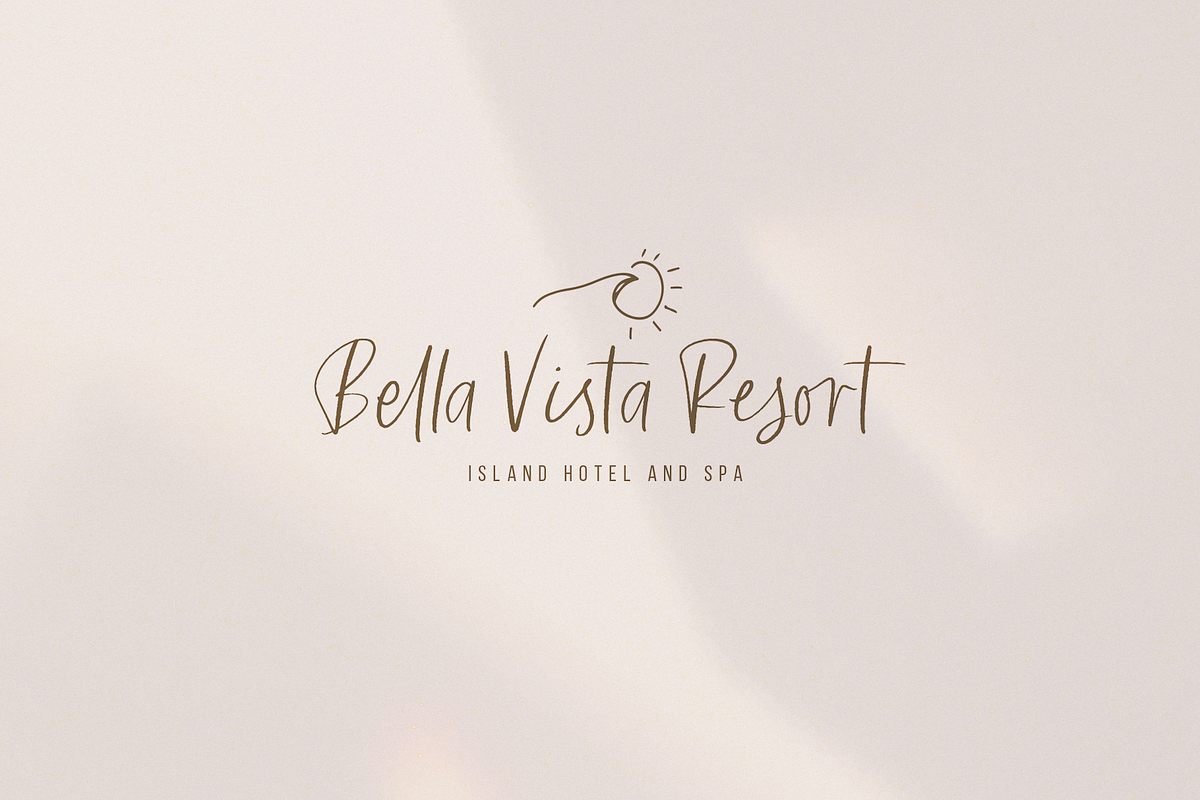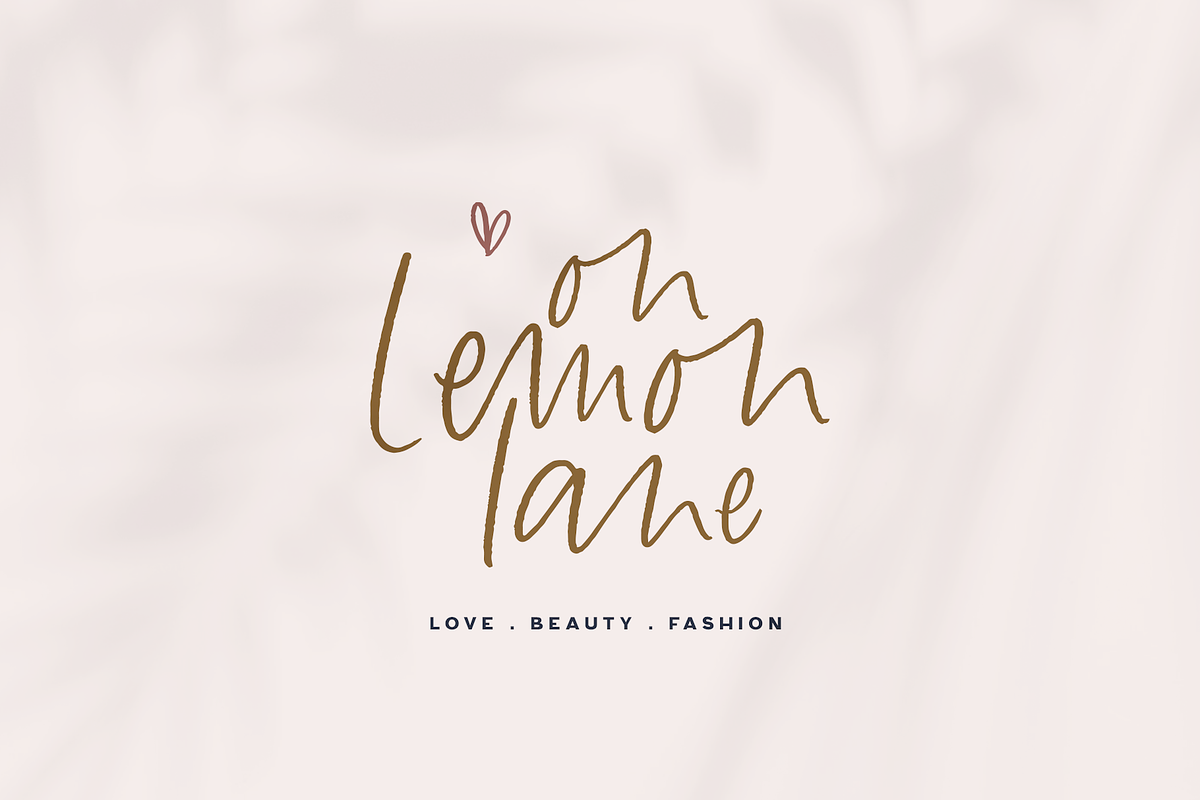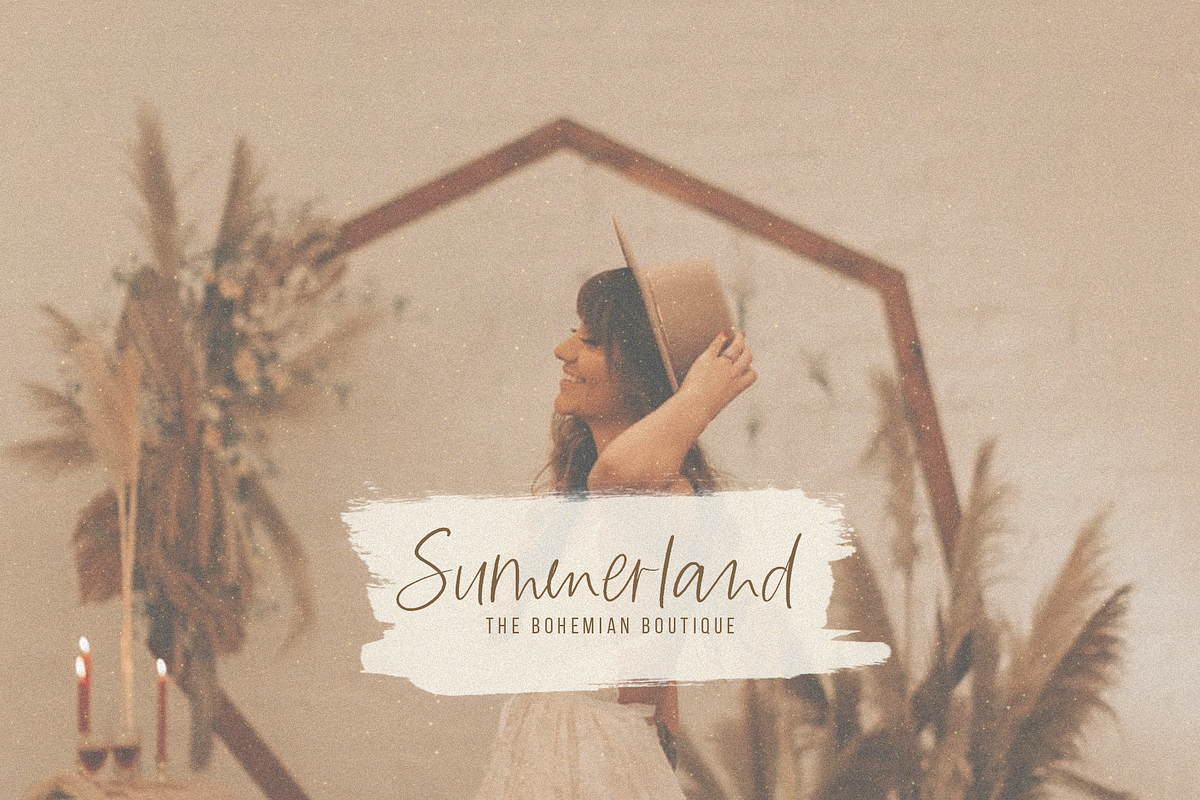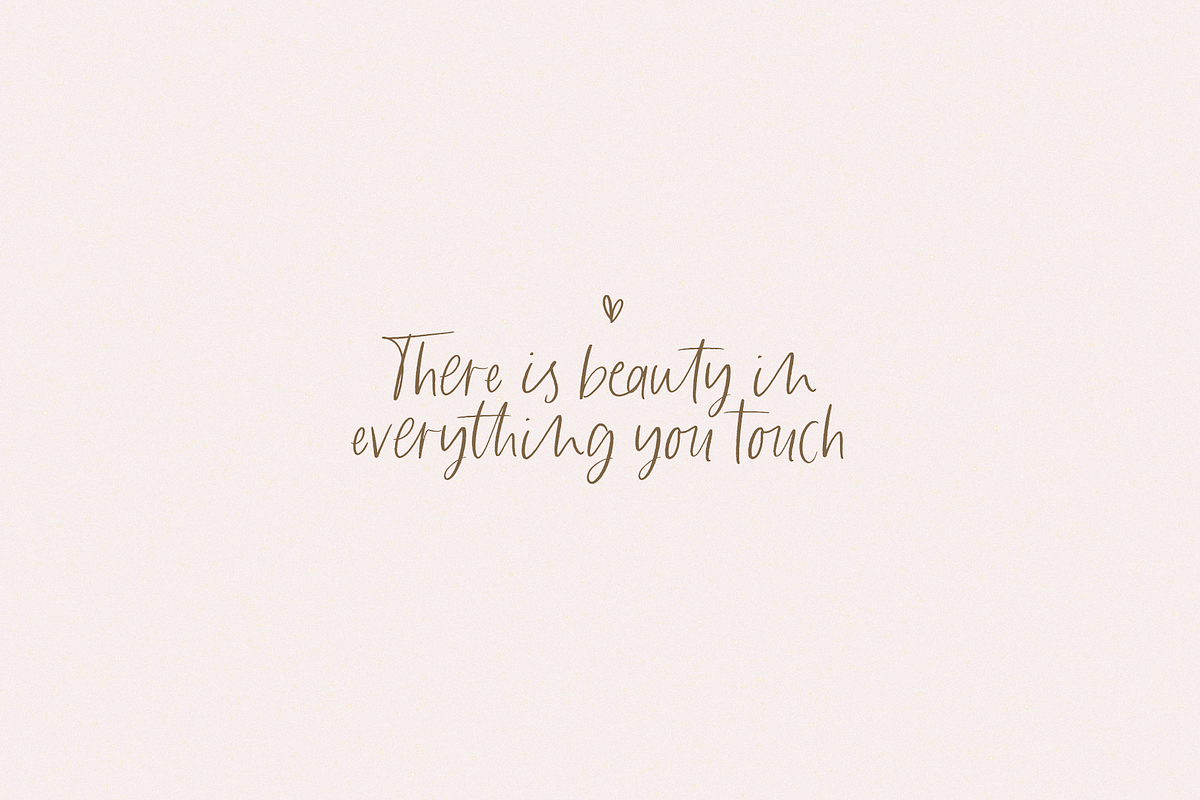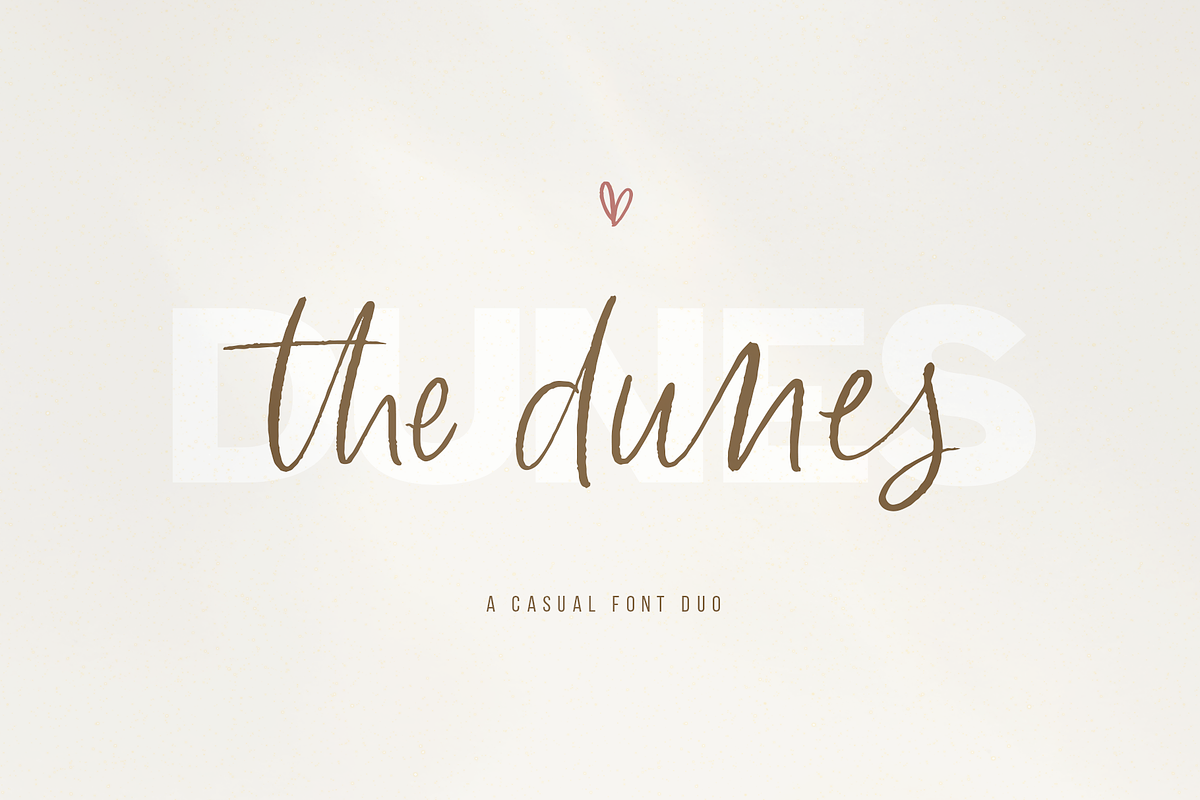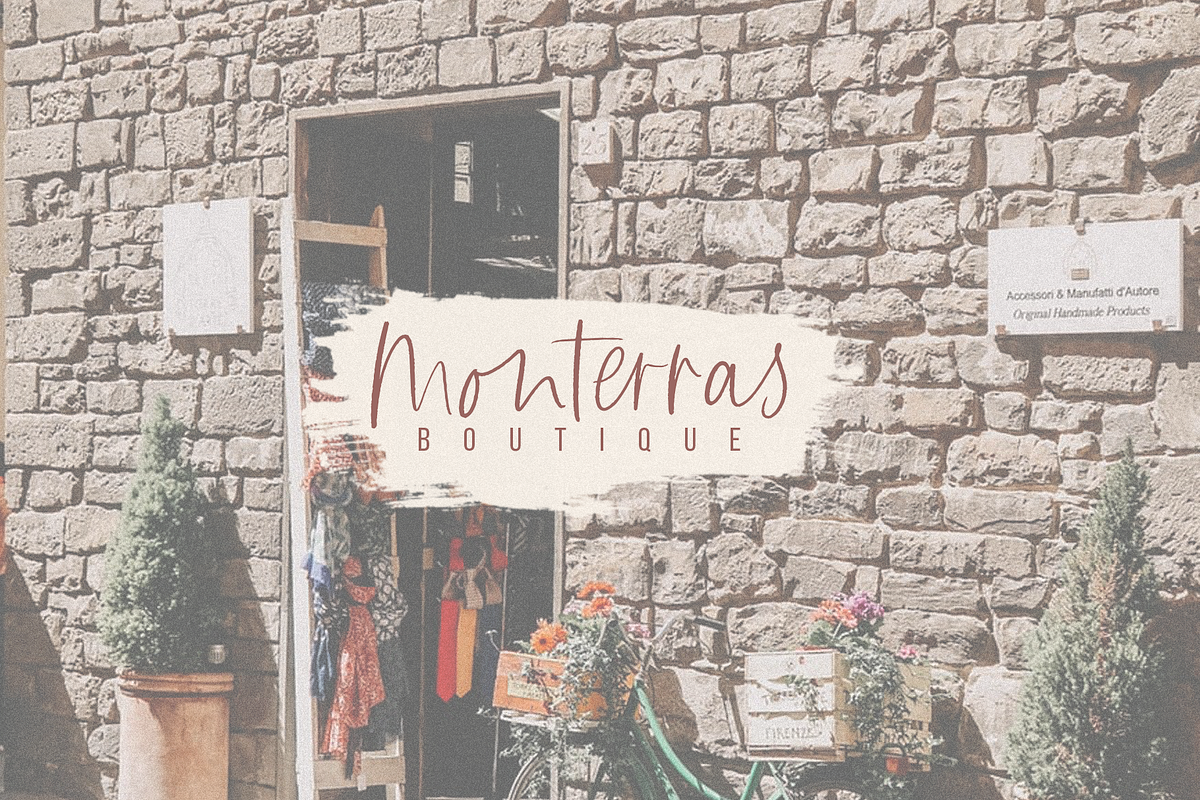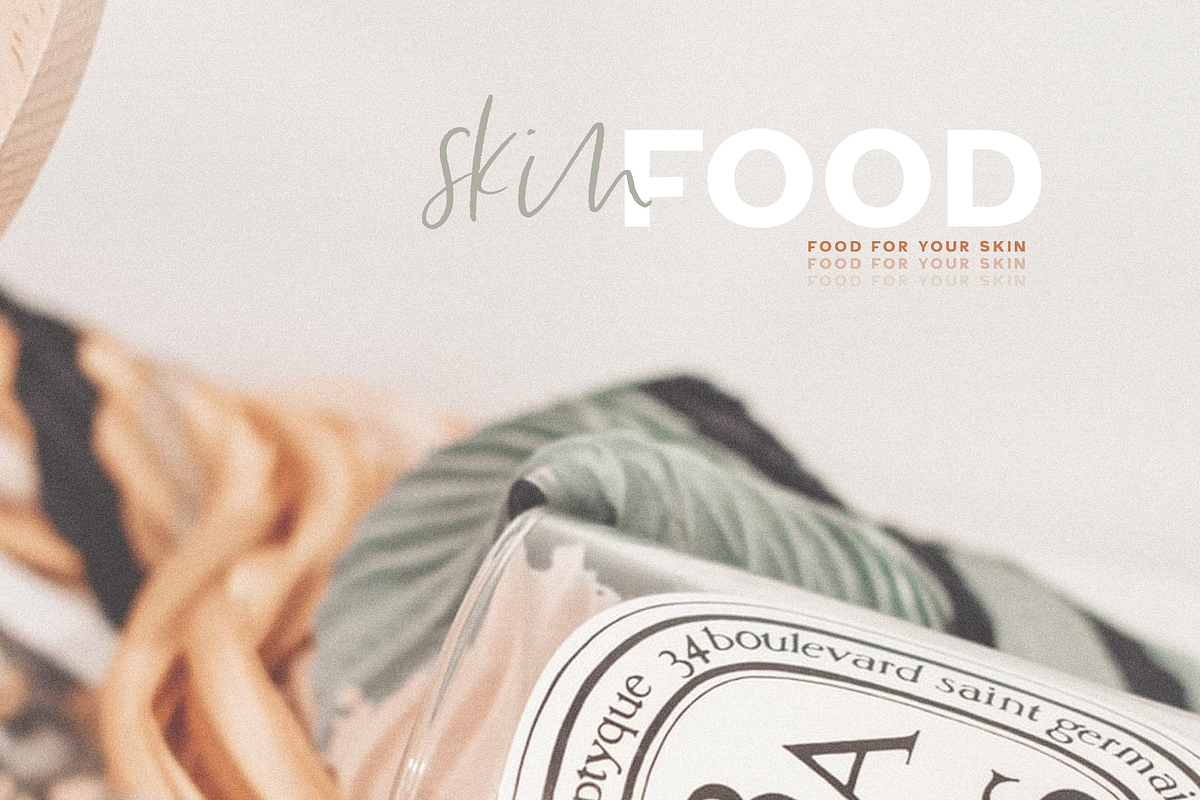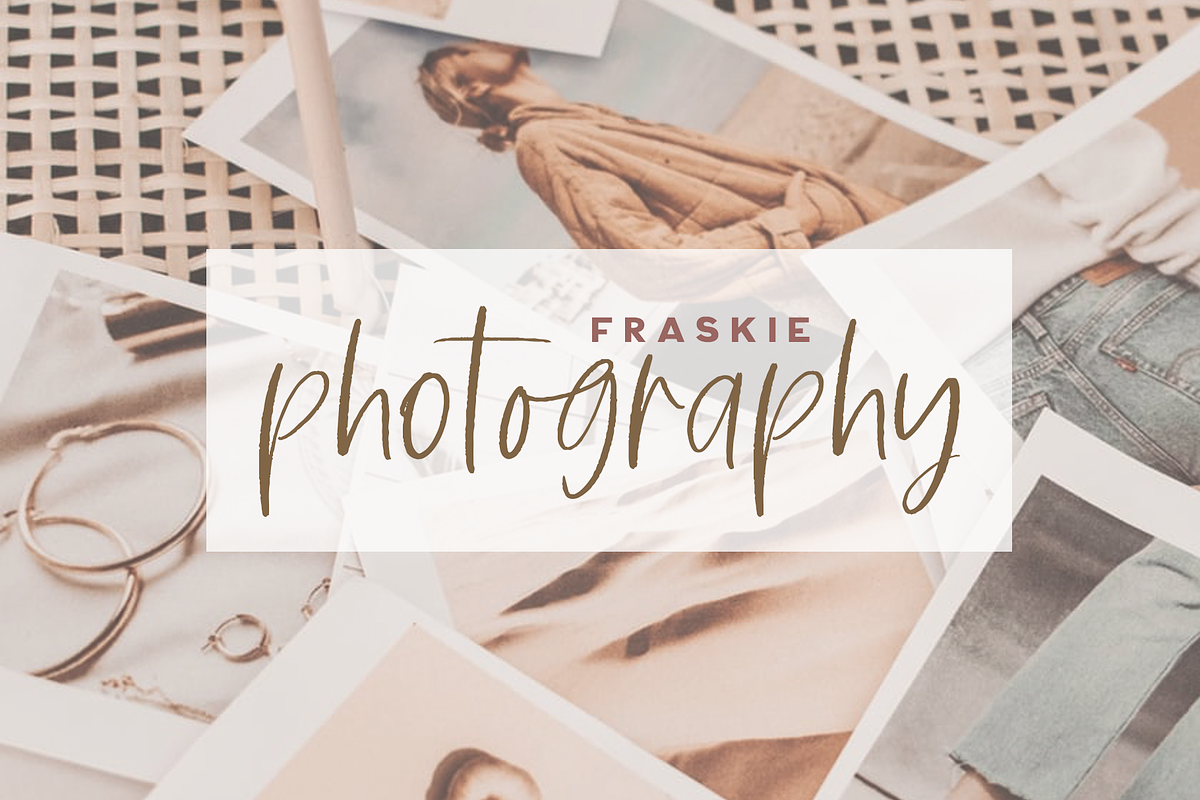
The Dunes | Script Serif Font Duo
The Dunes is a hand-drawn font duo with a casual look. The script font included with The Dunes comes with over 60 ligatures to provide a handwritten feel. There is also a set of 52 illustrations included - in font format to complement the set!
This font duo is perfect for any modern project including branding design, logos, invitations, wedding decor, website design, instagram, business cards, and more!
The Dunes Sans - A thick sans font
The Dunes Script - A modern handwritten script font
The Dunes Extras - Complimentary illustrations
- The script font included with The Dunes comes with over 60 ligatures to provide a handwritten feel.
- There is also a set of 52 illustrations included - in font format to complement the set!
- Includes The Dunes Sans - A thick sans font The Dunes Script - A modern handwritten script font The Dunes Extras - Complimentary illustratio
- The script font included with The Dunes comes with over 60 ligatures to provide a handwritten feel.
- There is also a set of 52 illustrations included - in font format to complement the set!
- Includes The Dunes Sans - A thick sans font The Dunes Script - A modern handwritten script font The Dunes Extras - Complimentary illustratio
- The script font included with The Dunes comes with over 60 ligatures to provide a handwritten feel.